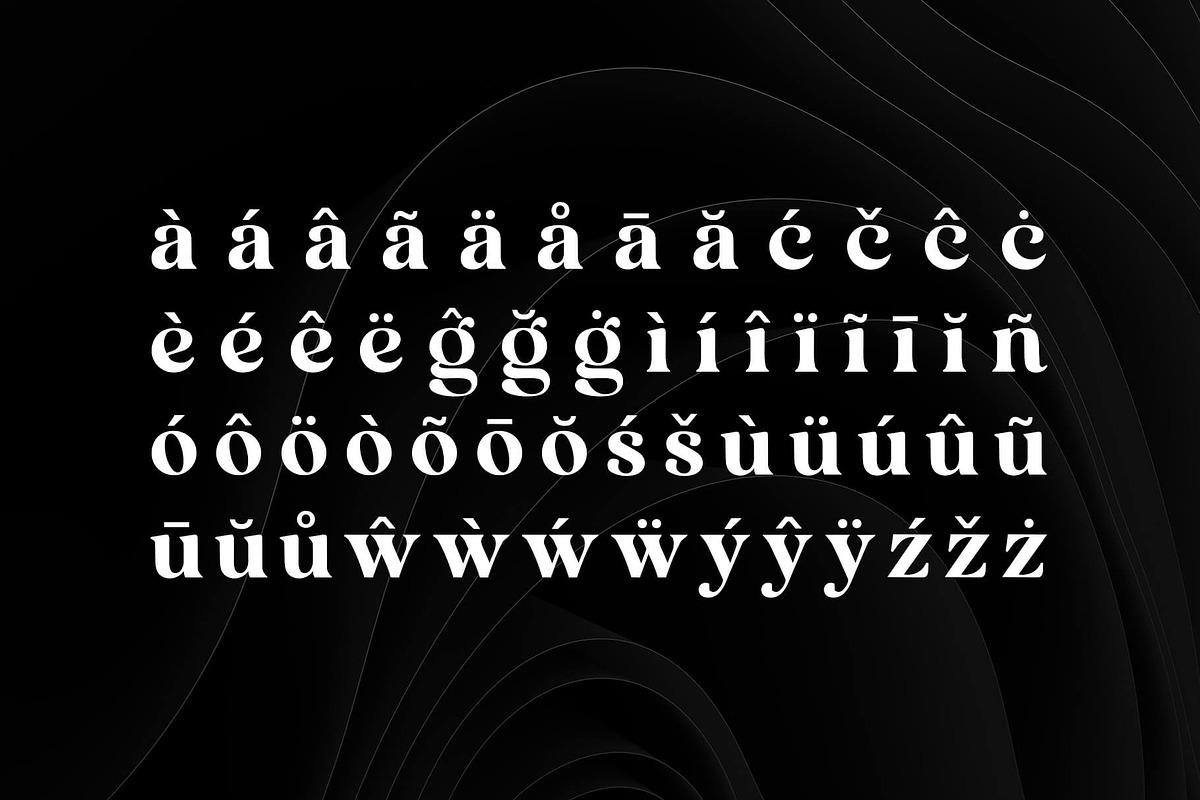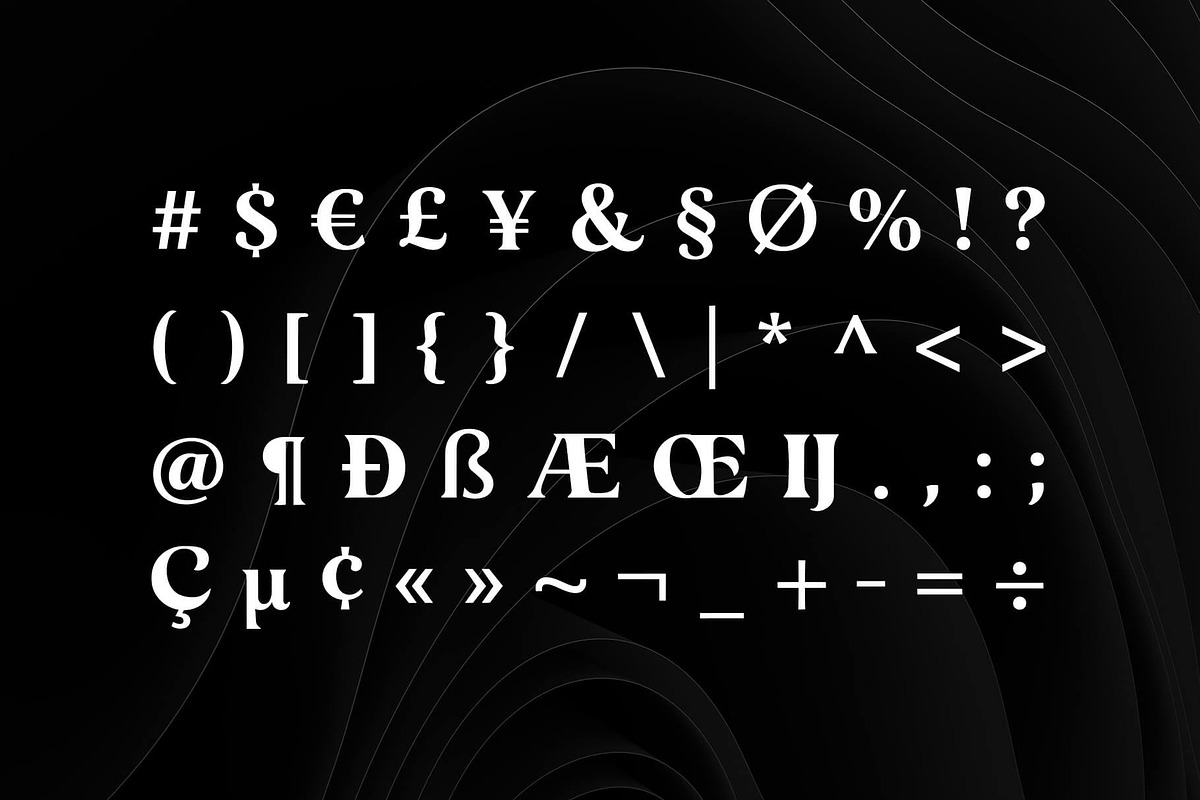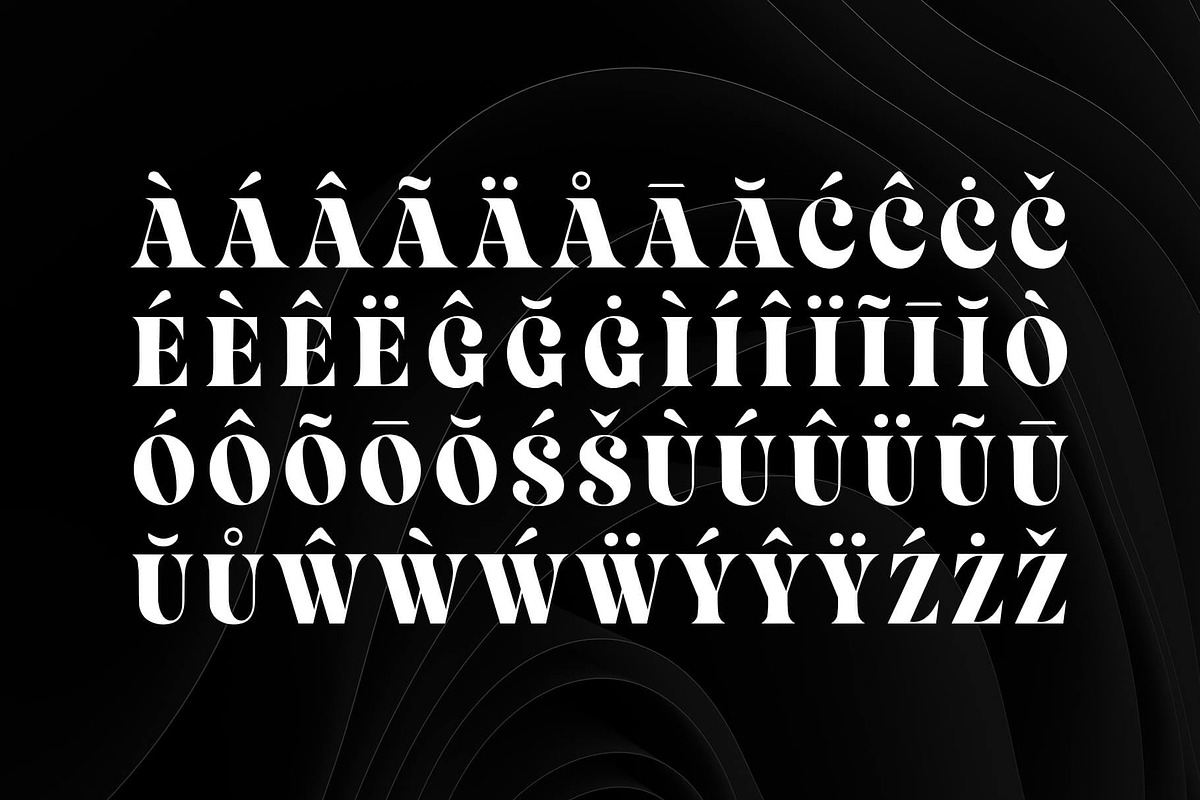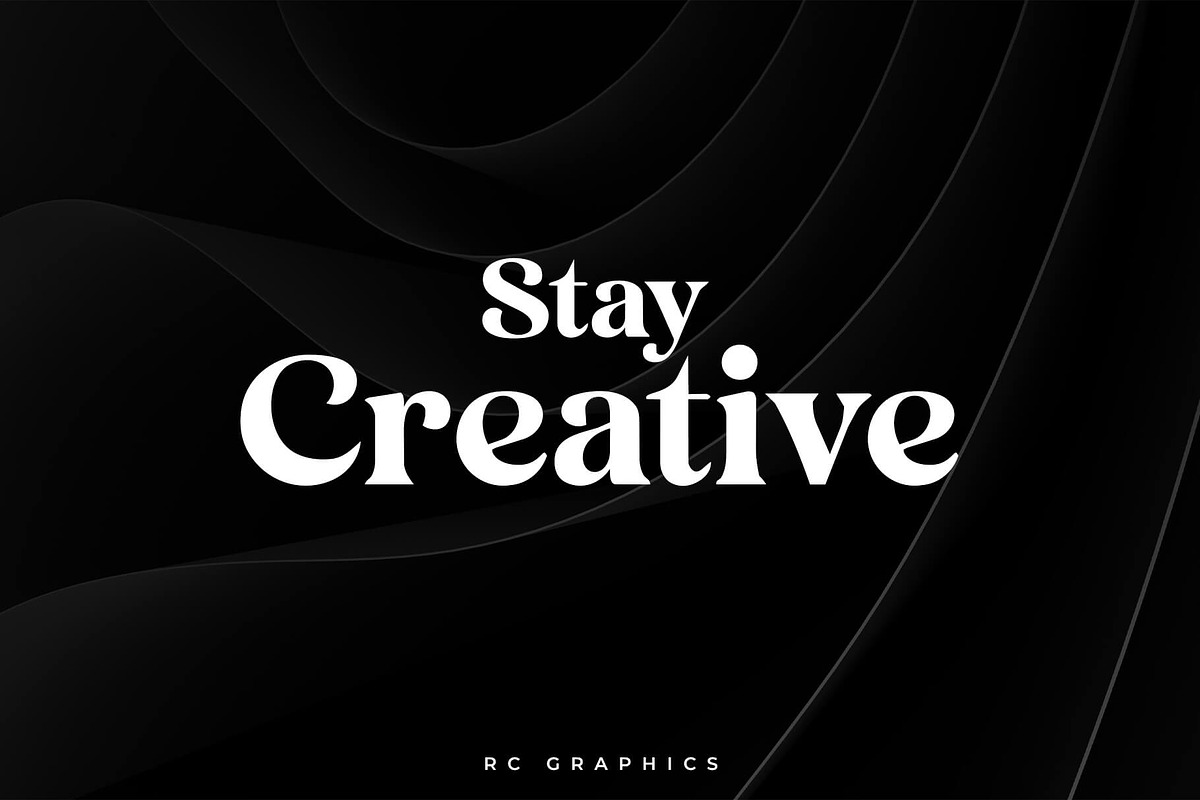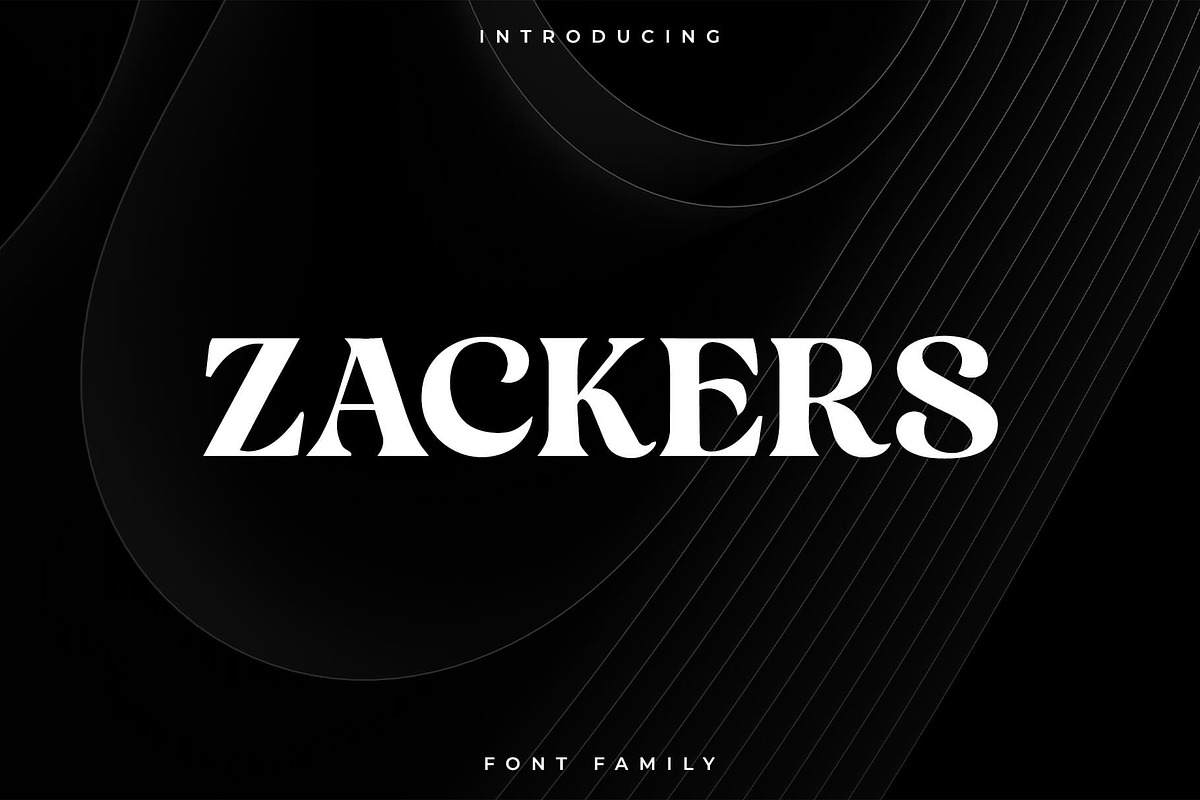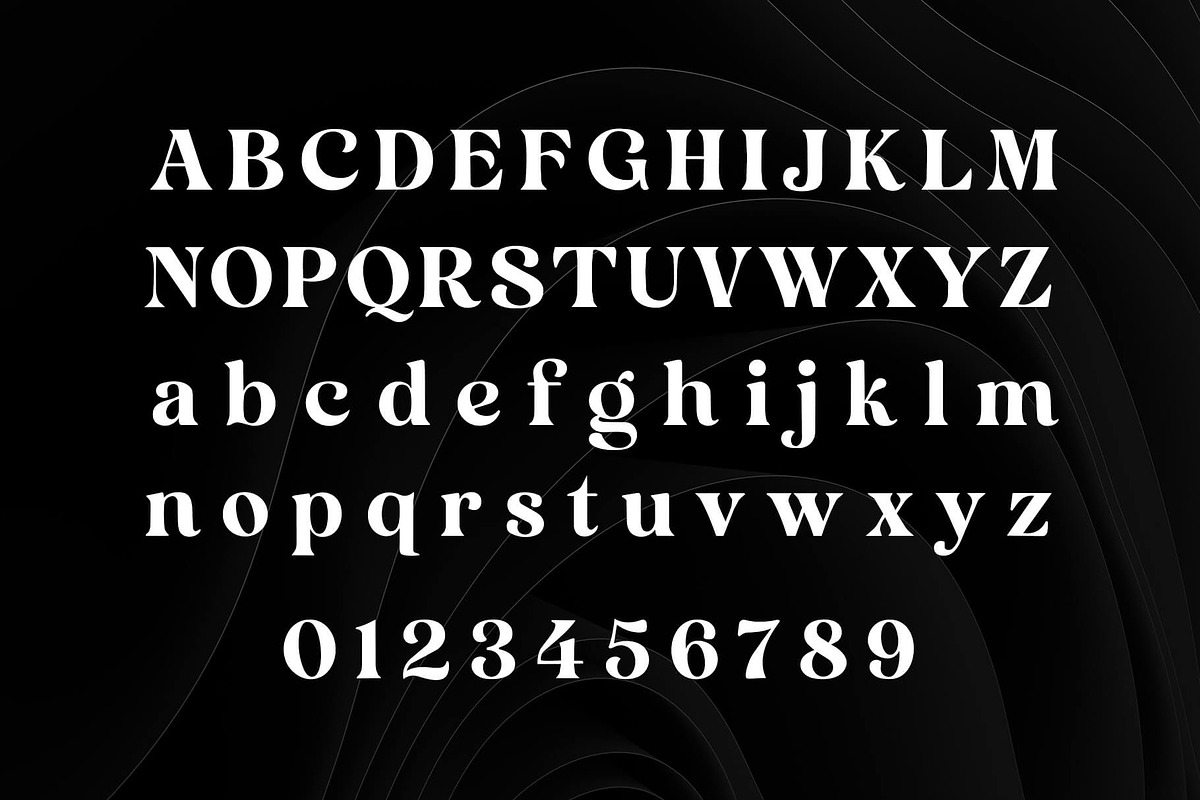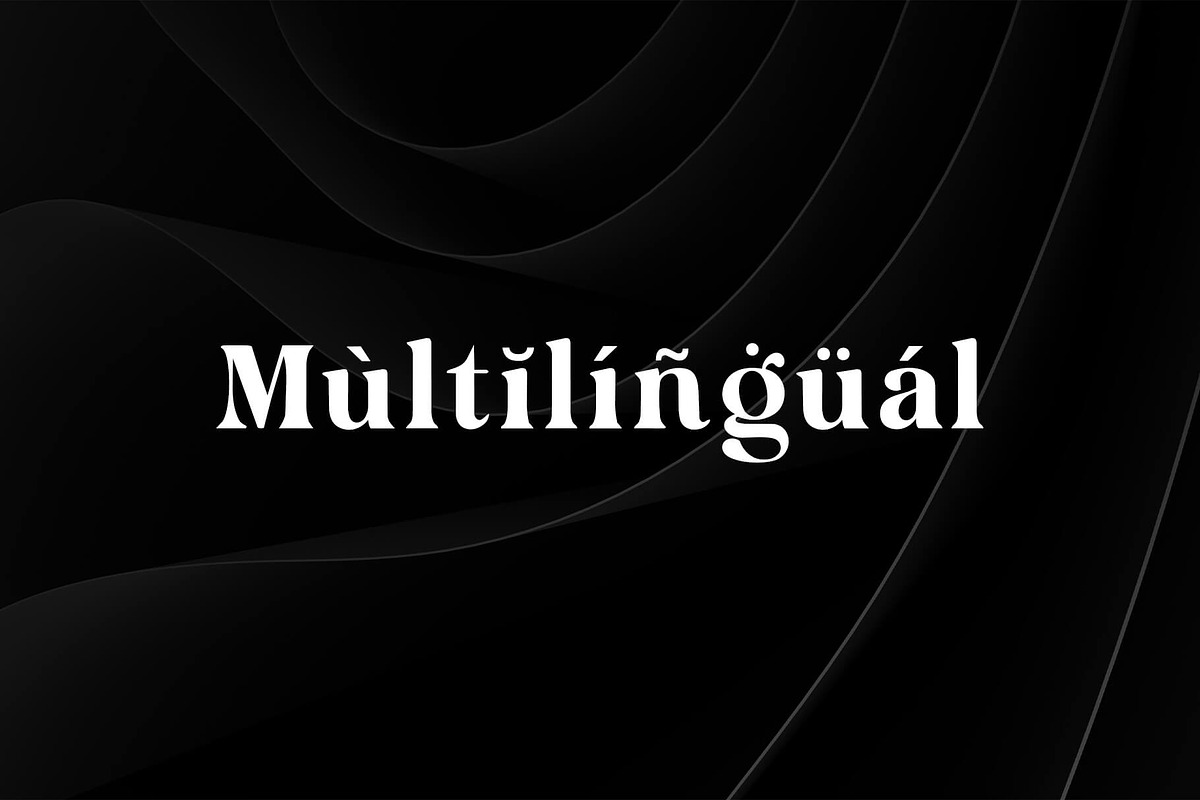
Zackers - Vintage Serif
Zackers is a display serif typeface inspired by 1970s editorial aesthetics and reimagined with an elegant contemporary finish. Its striking contrast between generous thick strokes and refined hairlines gives it a warm, expressive, and sophisticated personality.
Its sculptural curves, delicately flared serifs, and distinctive details create a unique visual rhythm. Every character has been carefully crafted to form a cohesive, legible, and instantly recognizable typeface.
Zackers is a characterful typeface designed for creatives seeking the perfect balance between nostalgia, originality, and contemporary sophistication.
Uppercase letters
Lowercase letters
Symbols
Accented characters
Multilingual (Foreign language characters)